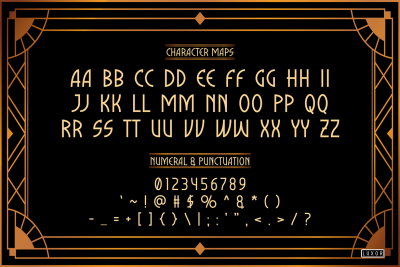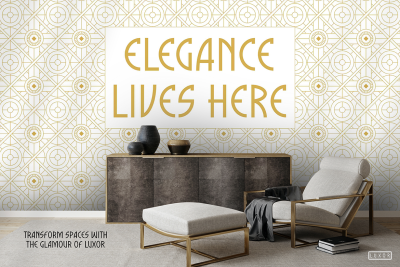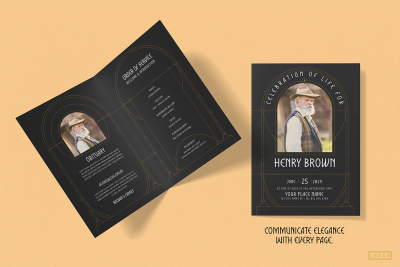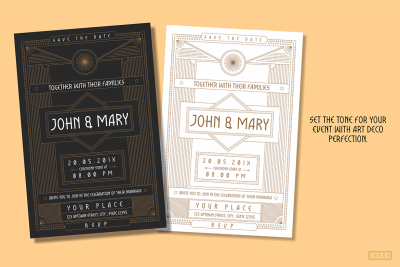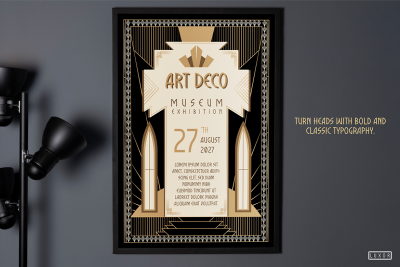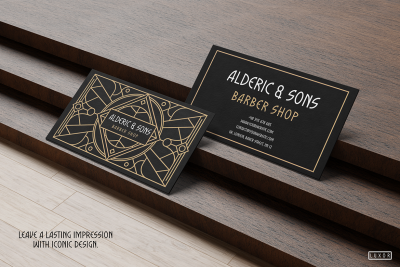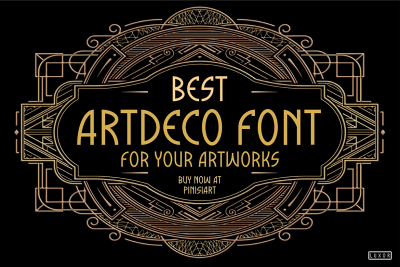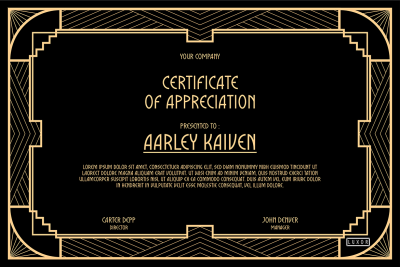
Vintage Font Luxor is a typeface inspired by the elegance of the Art Deco era. Its bold and symmetrical design combines geometric precision with graceful curves, making it a versatile and eye-catching choice. The font reflects the opulence and glamour of the 1920s and 1930s, bringing a touch of luxury to any project. Moreover, its clean lines and intricate details make it ideal for designs that exude sophistication and refinement.
In addition, this typeface blends classic and modern elements, ensuring it works seamlessly for a variety of creative needs. It adapts well to both minimalist and ornate designs, whether for digital or print media. As a result, Vintage Font Luxor adds a nostalgic feel while remaining polished and professional. Its strong presence makes it perfect for headlines, logos, and branding materials. Therefore, designers looking for a bold yet elegant typeface will find Luxor a valuable asset.
Vintage Font Luxor Who is this font suitable for?
Vintage Font Luxor is perfect for graphic designers and branding specialists. For luxury branding, it works exceptionally well for packaging, logos, or corporate identities. Additionally, businesses in the hospitality and jewelry sectors can use this font to convey a sense of exclusivity and elegance. Furthermore, wedding planners will find it ideal for creating timeless invitations, menus, and other event materials.
Similarly, boutique owners and artisans can highlight craftsmanship and quality by incorporating Luxor into product labels or signage. For social media influencers and content creators, this typeface enhances graphics for platforms like Instagram and Pinterest. Consequently, Luxor ensures that content stands out, thanks to its bold yet refined design.
The font is also a great choice for themed projects, such as retro advertisements, Art Deco-inspired events, or vintage-style promotions. Moreover, editorial designers will appreciate its ability to bring sophistication to magazine covers, posters, and art prints. Whether used for a restaurant menu, a luxury brand logo, or promotional materials, Luxor consistently delivers a timeless and striking aesthetic.
Overall, its versatility makes it a must-have for anyone wanting to create designs with a blend of nostalgia and modern appeal. Vintage Font Luxor offers elegance, functionality, and a unique charm that elevates every project it touches. Therefore, it is the perfect choice for creative professionals seeking a high-impact typeface.